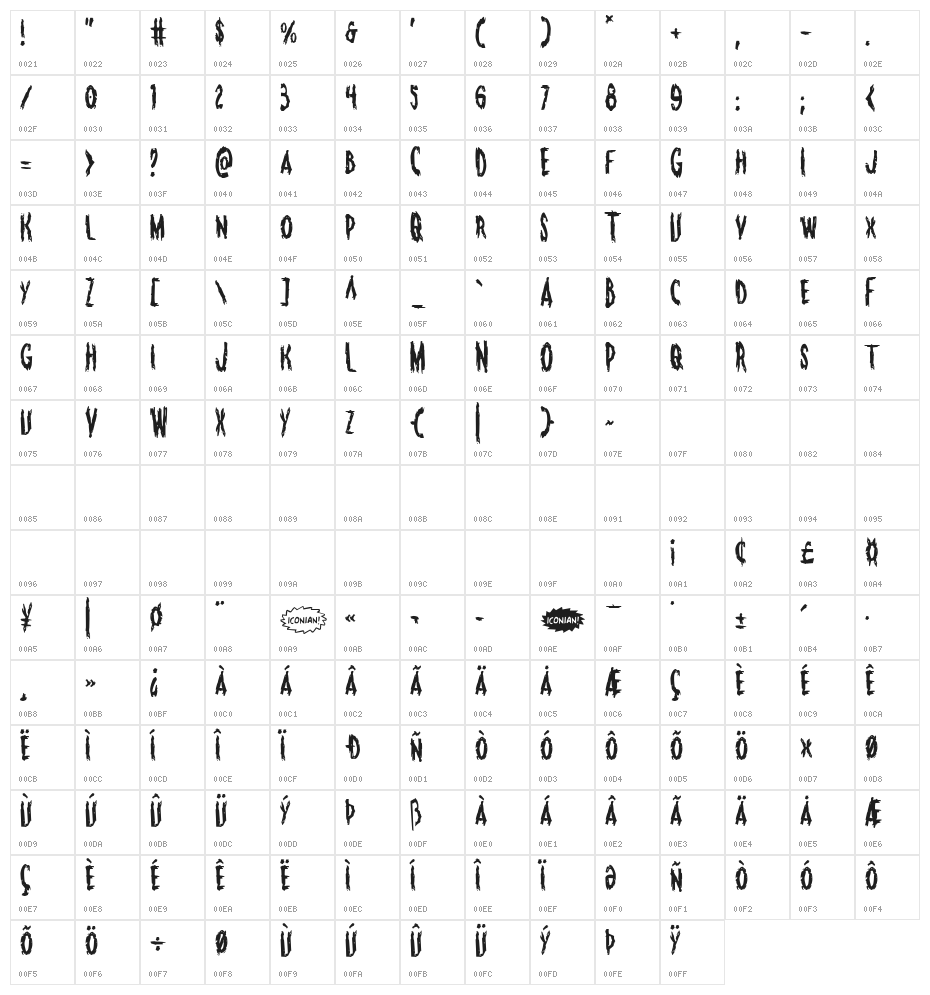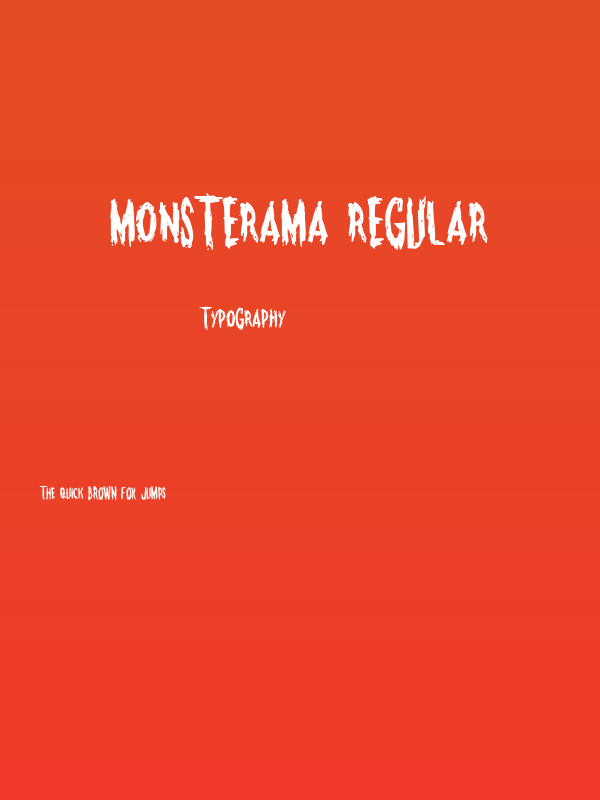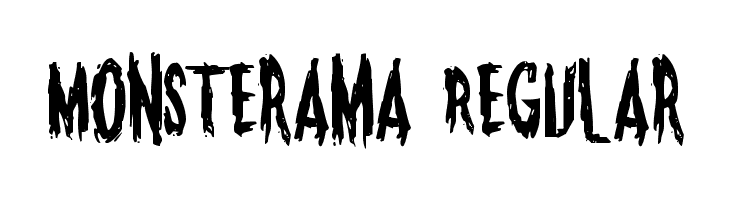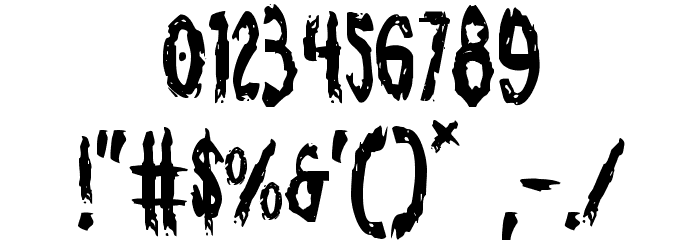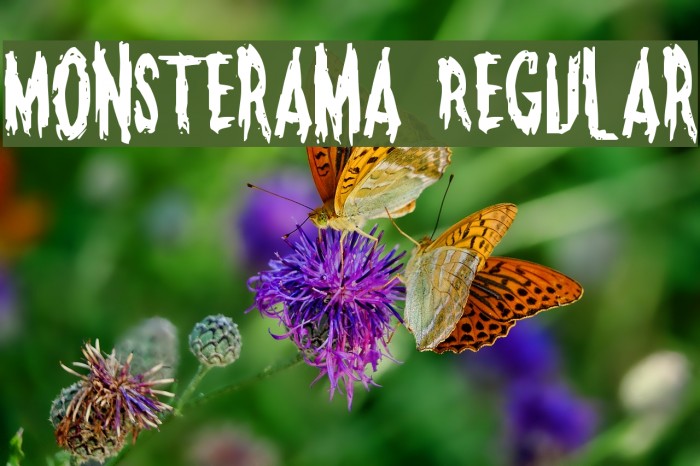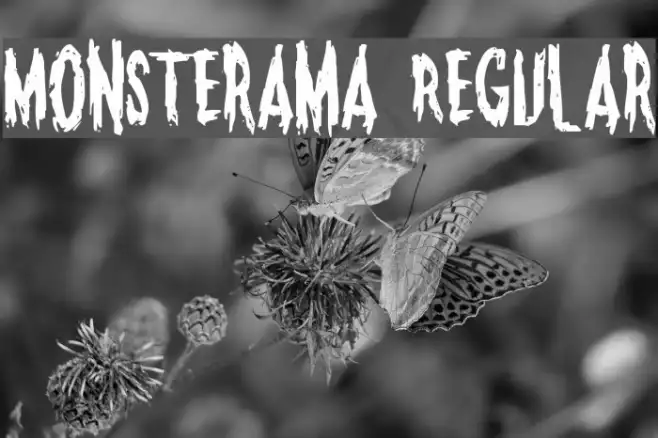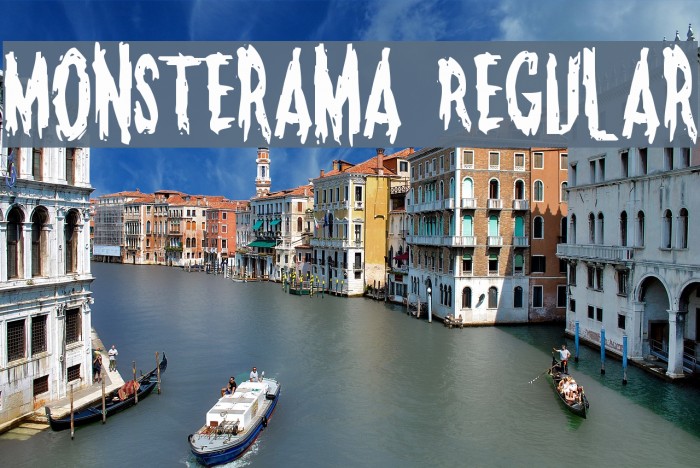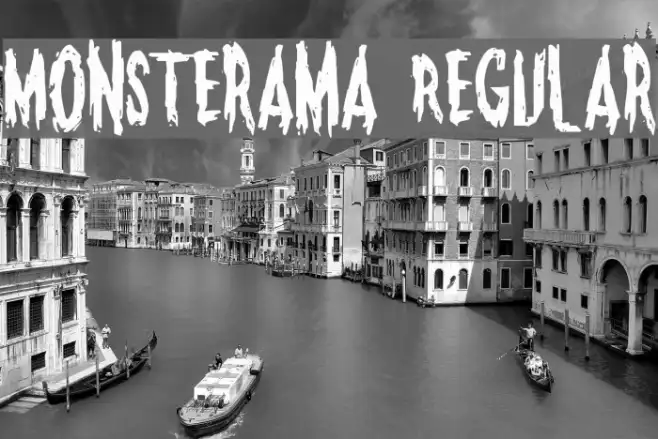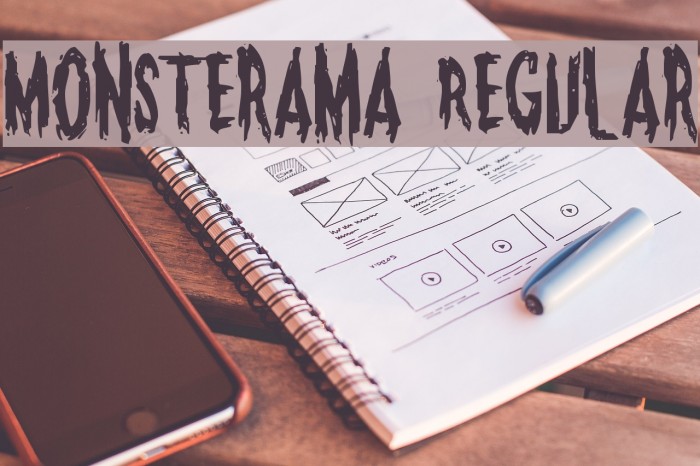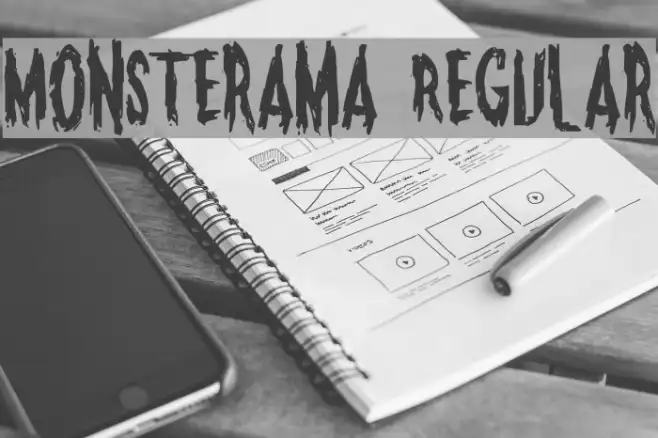
Monsterama Regular Font
Monsterama Regular Description
This font features a bold, jagged design that evokes a sense of horror and mystery. The characters are irregular and appear as if they are dripping or melting, giving a chaotic and eerie aesthetic. The uppercase and lowercase letters maintain a consistent style, with sharp edges and uneven strokes that enhance the unsettling vibe. Numbers and special characters follow the same theme, ensuring a cohesive look across all text elements. This font is ideal for projects that require a spooky or dramatic flair, such as Halloween-themed designs or horror movie posters.
| Proposed Projects | Ideal for Halloween designs, horror movie posters, spooky event invitations, and themed merchandise. |